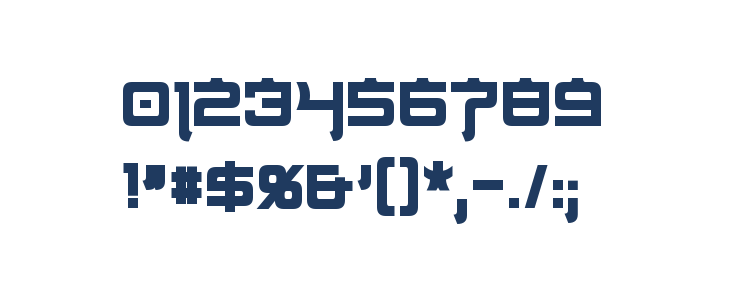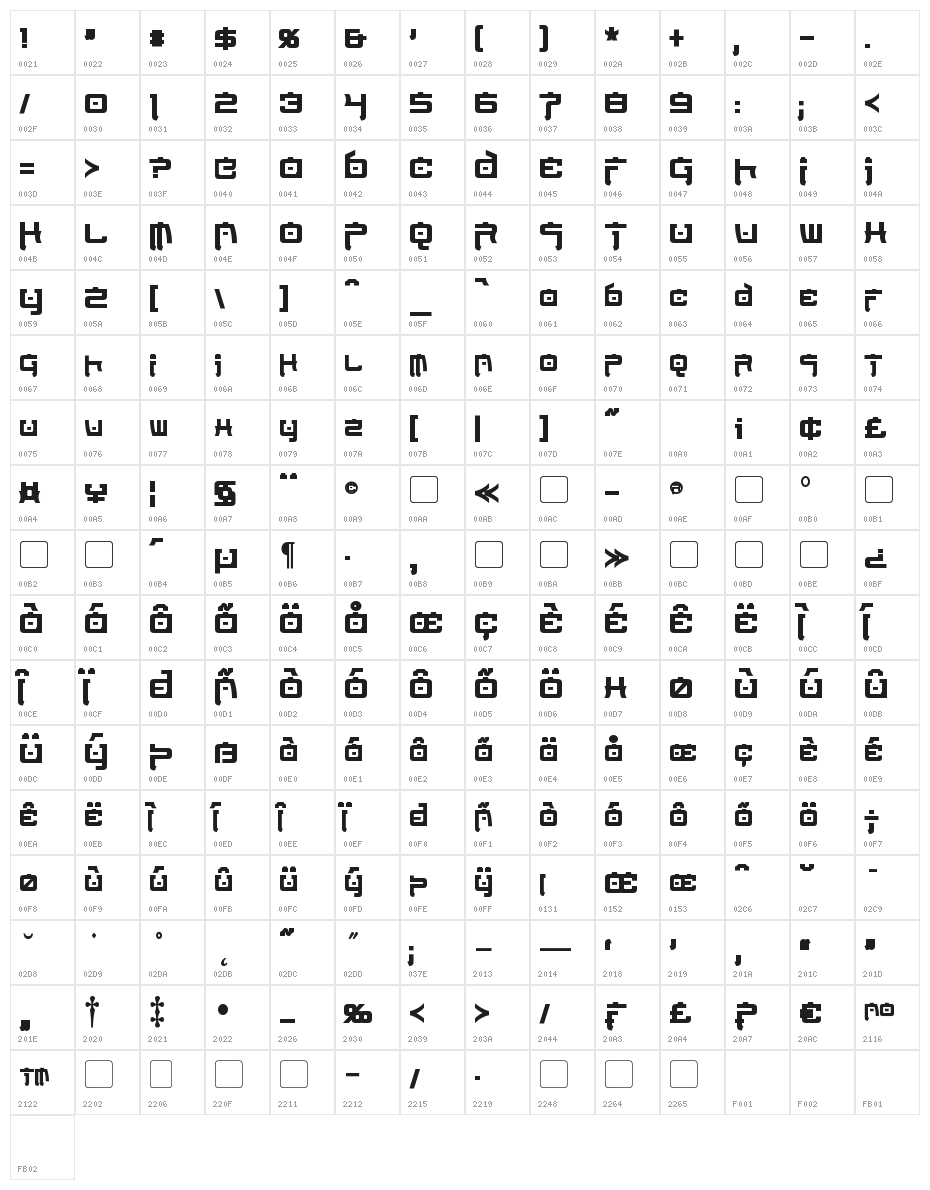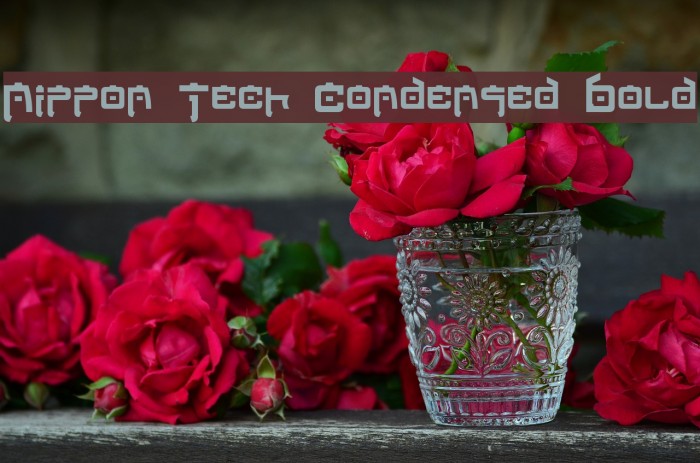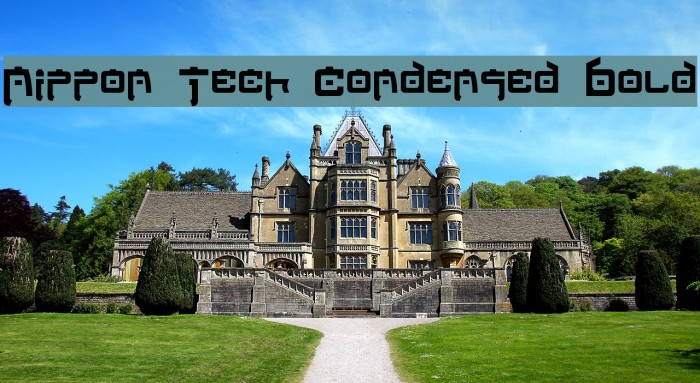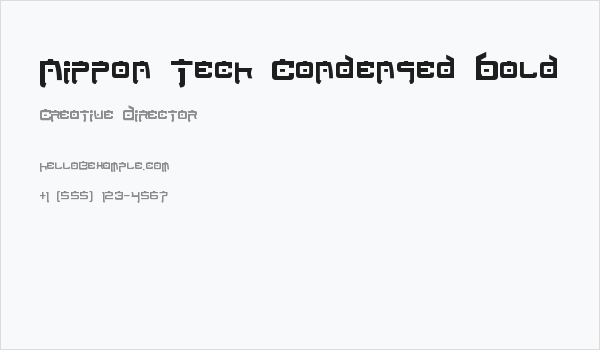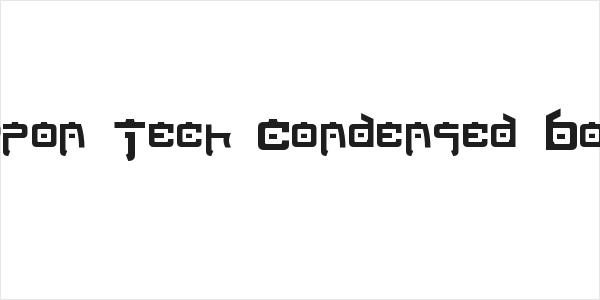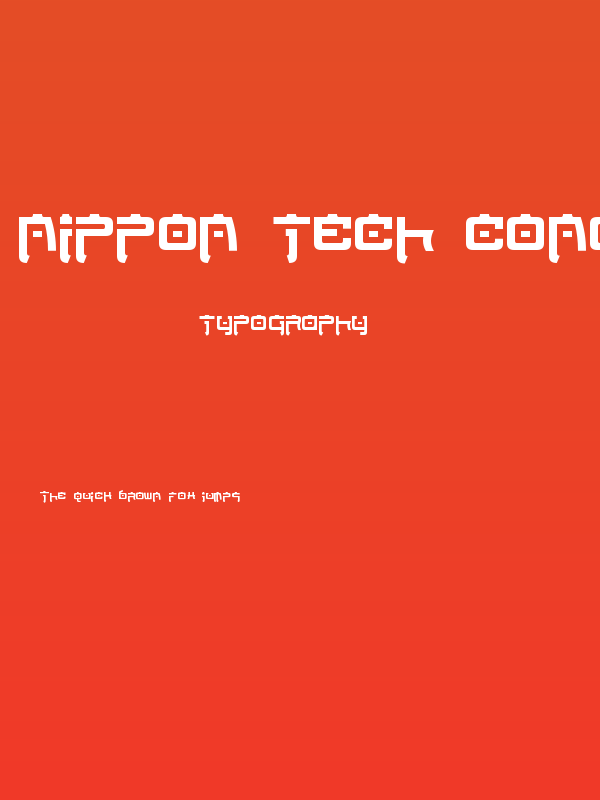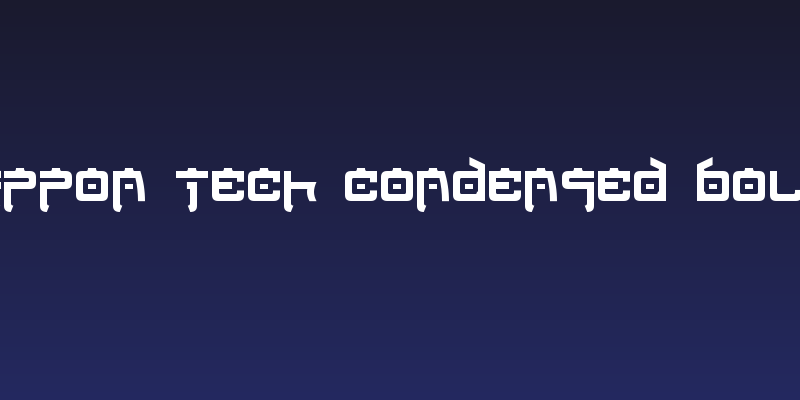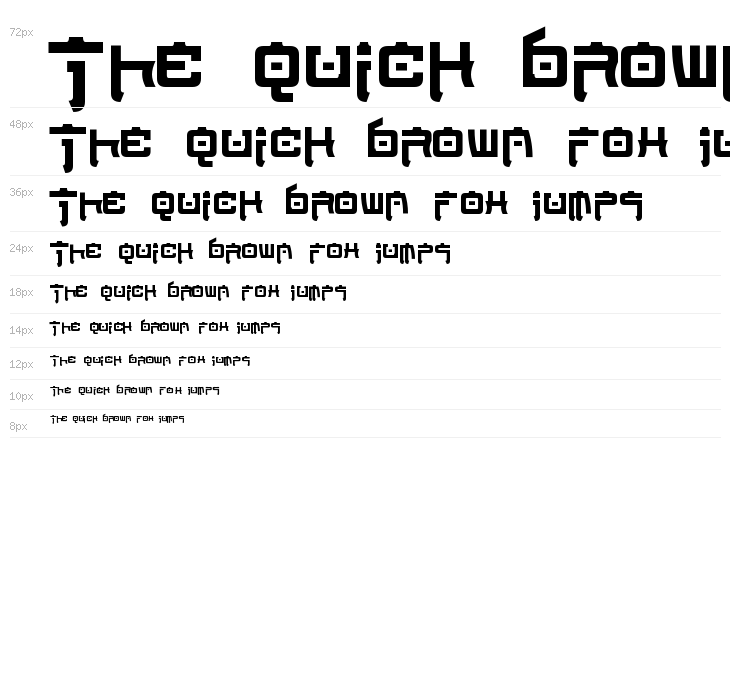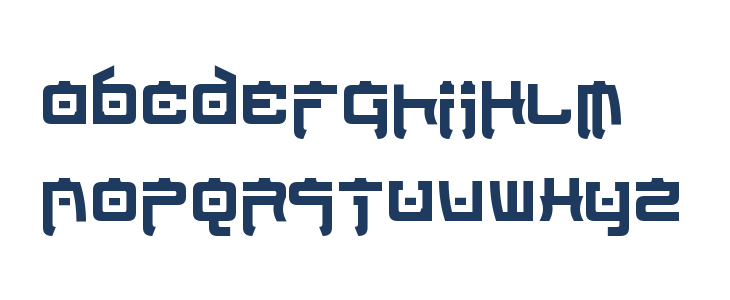
Nippon Tech Condensed Bold Font
Nippon Tech Condensed Bold Description
This font features a bold, futuristic design with a condensed structure. The characters are geometric and angular, with a distinct technological feel. The uppercase and lowercase letters share a similar style, emphasizing uniformity and cohesion. The numbers and special characters maintain the same boldness and angularity, making the font suitable for digital and tech-themed projects. The overall appearance is striking and modern, with a strong emphasis on readability despite its unique design.
| Proposed Projects | Ideal for technology branding, video game titles, sci-fi posters, and digital interfaces. |